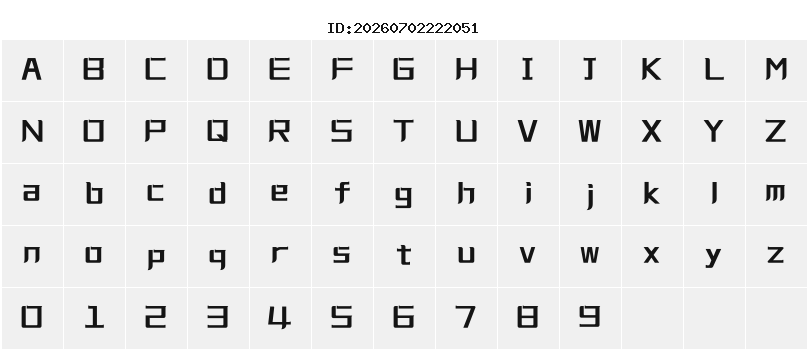
About 107-上首松羽体.ttf
107-上首松羽体.ttf is a modern, elegant sans-serif font designed for ultimate readability and visual harmony. Perfect for branding, headlines, web design, and print materials.